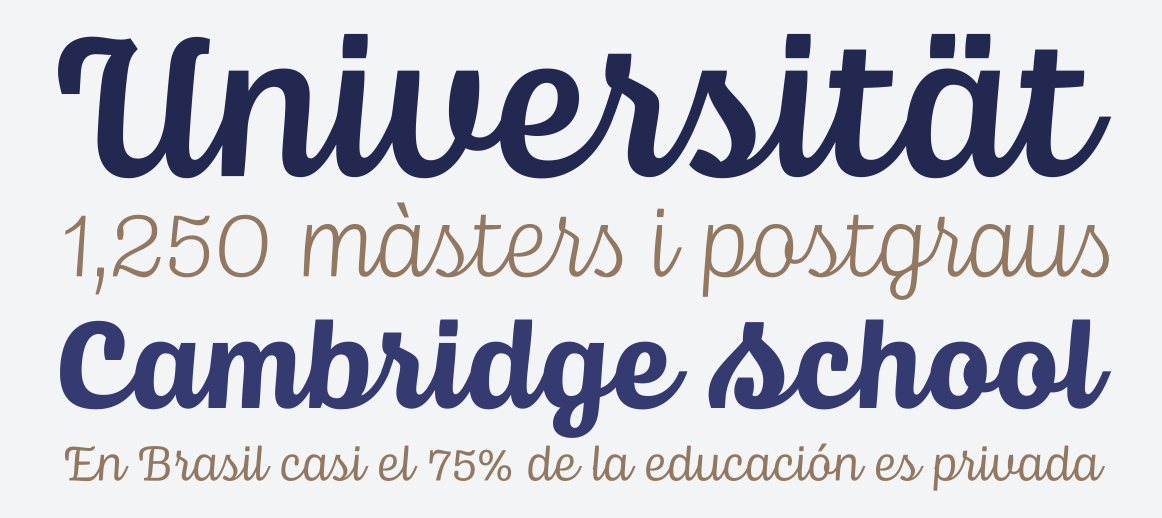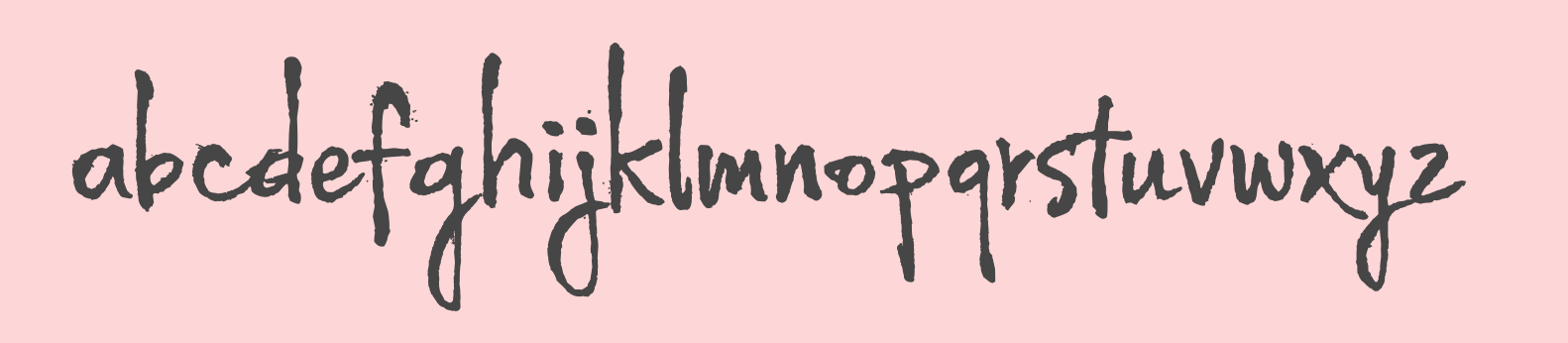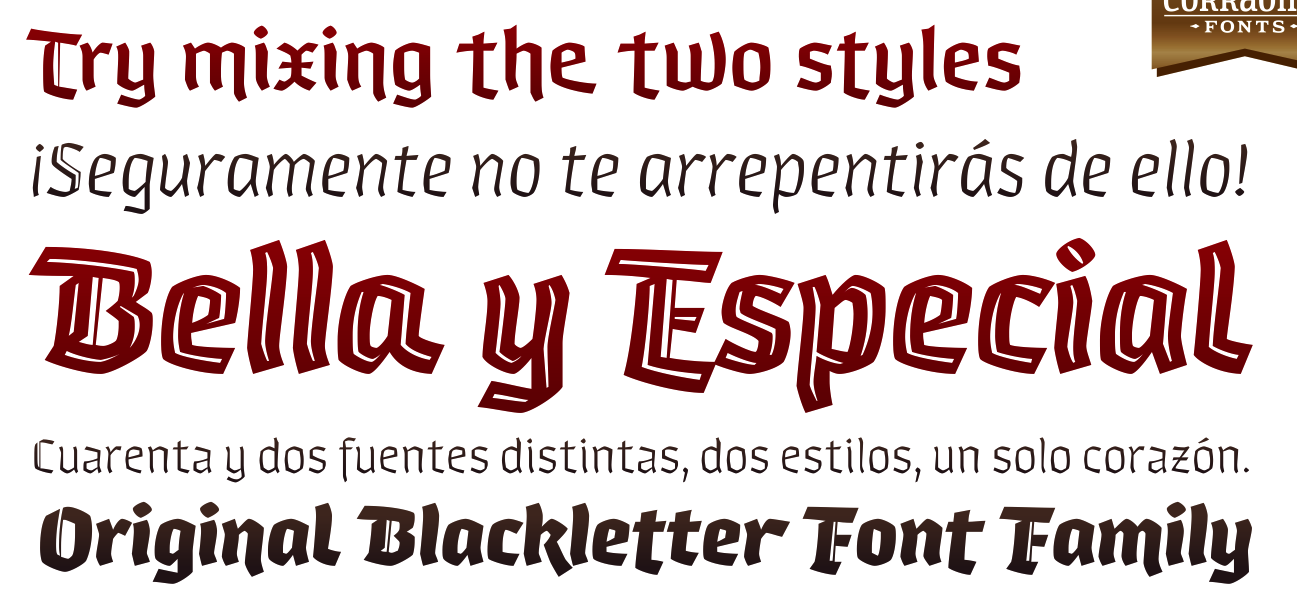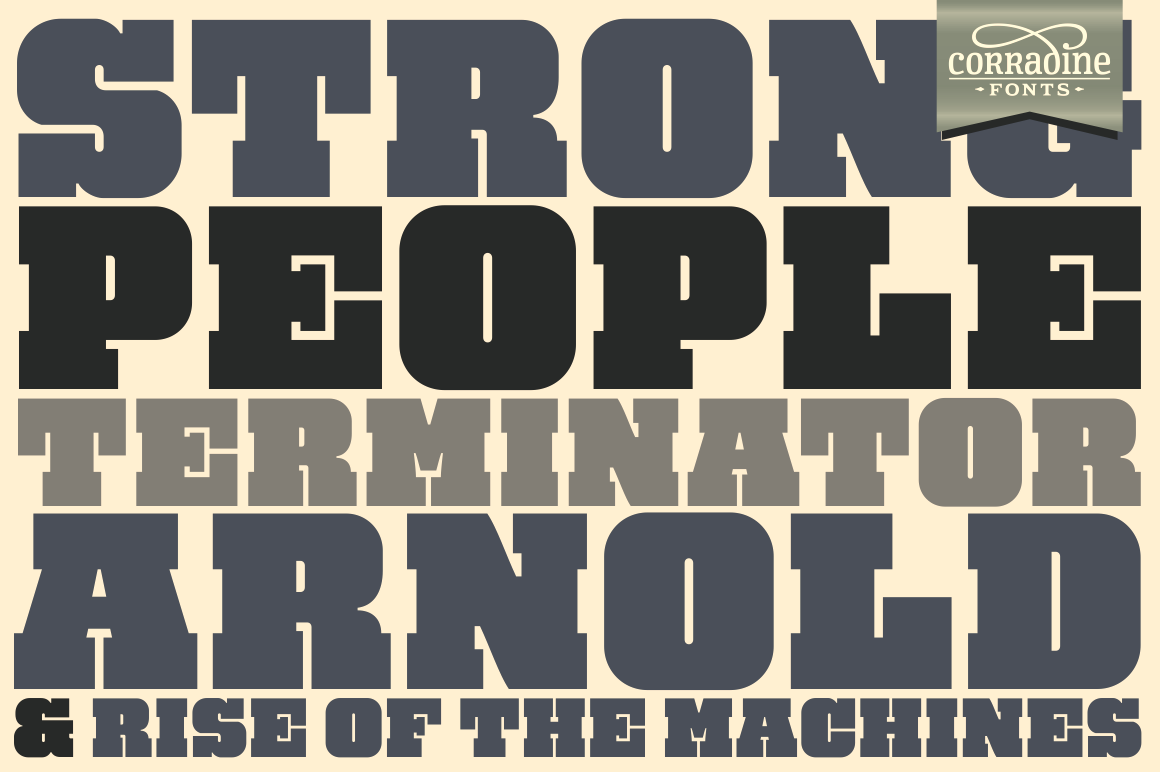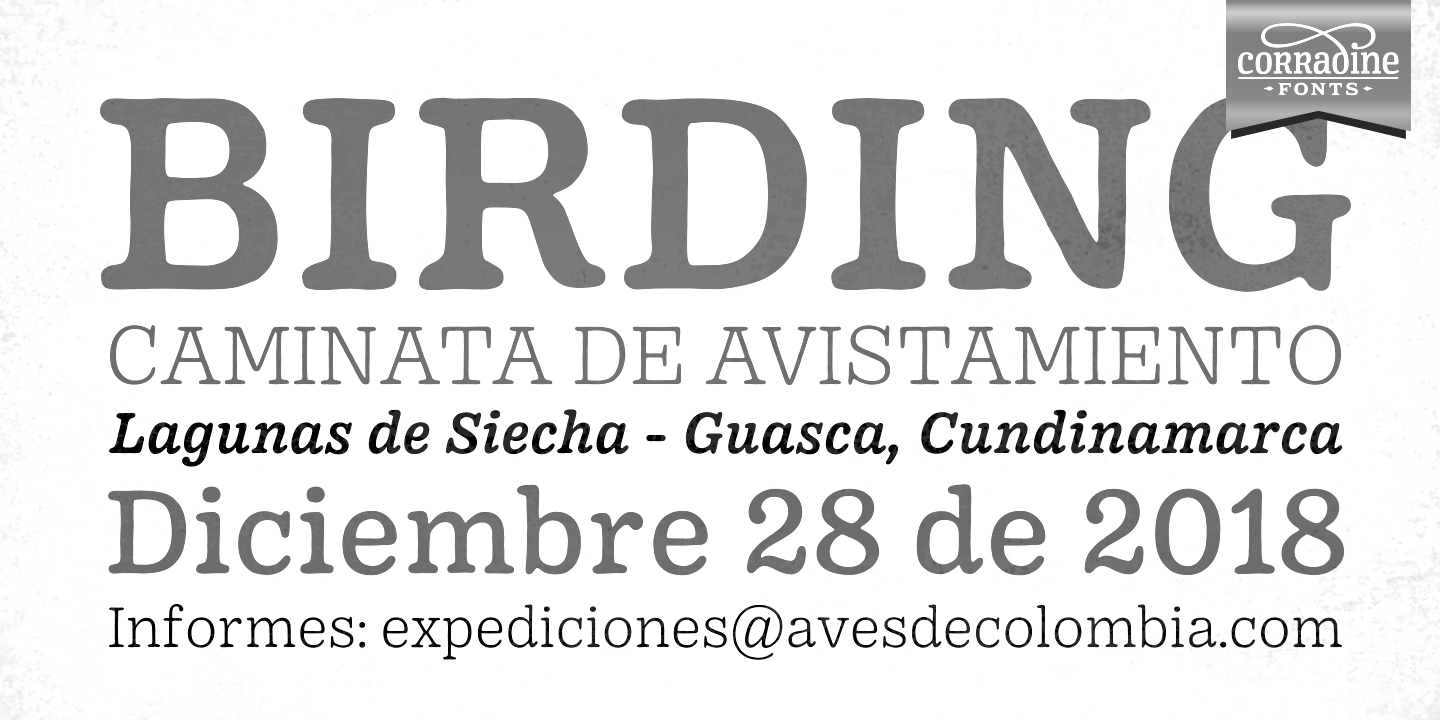
Corradine Fonts [Manuel Eduardo Corradine]
Manuel Eduardo Corradine Mora was born in Bogotá in 1973. He graduated from the School of Graphic Design of the National University of Colombia in 1996, and became a graphic designer. He started by custom-designing fonts and by making typefaces for his own company, Casa Papelera El Cedro (The Cedar Papermaking House), for printing invitation cards. With other designers like Carlos Fabián Camargo, John Vargas and César Puertas he formed Tipográfico in 2007 to strengthen the type discipline in Colombia. Corradine Fonts is Manuel Corradine's own foundry in Bogotá, Colombia, founded in 2006. Today, he is one of Colombia's principal type designers. He also teaches at Universidad Piloto de Colombia in Bogota.
Fonts from 2007: Kidwriting (a family which includes Kidwriting Dingbats 1 and 2), Garabata (a fantastic handwriting face), Garabata Dingbats, Hexagona Digital, Quadrat (grunge), Quadrat Old (grunge), Quadrat Dirty (grunge), Quadrat Broken, Quadrat Ugly, Neogot (experimental, 8 styles).
Fonts from 2008: Mucura (handwriting), Prissa (handwriting), Salpicon (a script), Cuento Serif (a bouncy hand-printed family), Memoria (brush script), Charco, Happy Day (comic book family with Happy Day Dingbats), Espectro (a swinging script with swashes and a Dingbats style), Furia (handwriting), Candelaria (based on house signs in the La Candelaria neighborhood of Bogotá), Old Village (1600's style), Old Village Ornaments, Rapidda (a successful simulation of quick handwriting), Hueca (an outline children's script), Antigua (an old swashbuckler family), Colegial (a great-looking hand script), Pincel (a fantastic paint brush family with accompanying splatter dingbats), Trazo (Corradine's handwriting), Arcos (a techno family), Caveman (a primitive stone-look type family), Rumba (two styles; an elegant flowing brush script), Parche (graffiti family), Elegance Monoline (a greeting card script typeface that won an award at Tipos Latinos 2008), Abuelito (script).
Fonts from 2009: Helga (flowing script), Mussica (+Swash, +Antiqued: a delicate Victorian typeface; followed in 2017 by Mussica Italic), Guarapo (hand-printed), Toxic (futuristic stencil), Emotion (comic book face), Bloque 3D, Rock and Cola, Betco's Hand, Telefante (comic book family), Nancy's Hand (more comic book hand-printing), Alambre (multiline/paperclip), Sensual (calligraphic hand), Zape (in the style of Tekton), Antrax Tech (grunge), Masato (handwriting), Hu Kou (oriental simulation).
Fonts fgrom 2010: Miel (a curly script), Oferta (a signage script), Corradine Handwriting (and Corradine Handwriting Italic, 2015), Alberto (connected hand), Changua (hand-printed).
Fonts from 2011: Plebeya (2011, connected hand), Mimi's Hand Connected, Legendaria (an extensive connected calligraphic family).
Fonts from 2012: Tecna (a techno family co-designed with Sergio Ramirez), Neuron (a fantastic 16-style rounded elliptical sans family created together with Sergio Ramirez), Bucanera Soft (blackletter), Bucanera Antiqued (grungy blackletter), Official (a simple monoline sans family), Almibar (a connected calligraphic Spencerian script), Eterea (a roman all-caps family), Eterea LC (the lower case set), Canciller (an italic roman, done with Sergio Ramirez), Quarzo (2012, a formal copperplate script done with Sergio Ramirez).
Typefaces from 2013: Neuron Angled (still with Sergio Ramirez), Alianza Slab (a great-looking slab family), Alianza Italic and Alianza Script (a packaging font), all made jointly by Manuel Eduardo Corradine and Sergio Ramirez.
Typefaces from 2014: Whisky (a large blackletter family with inlines and fills for layering co-designed with Sergio Ramirez; related to German expressionism, it won an award at Tipos Latinos 2016), Whisky Italics, Beauty Script (with Juan Sebastian Rincon), Emblema and Emblema Headline (tall-legged art deco sans family by Duvan Cardenas), Wild Pen (a 1200-glyph set of typefaces that can be used to simulate handwriting thanks to smart replacements in Opentype), Sinffonia (a thin informal typeface with oodles of choices for swashes).
Typefaces from 2015: Be Creative (a vintage display typeface), Typnic (a varied handcrafted layered and script typeface family; rhymes with picnic), Typnic Headline Slab.
Typefaces from 2016: Naugles (thick display face based on the Naugles logo), Scrans (a modern signage script), Bloque (heavy slab family), Bloque Italic.
Typefaces from 2017: Cristal (layered, triangulated and beveled font family, including exquisite Cristal Dingbats and Cristal Frames), Almibar Pro (connected calligraphic script).
Typefaces from 2018: Tierra Script, Pueblito (rustic style).
Typefaces from 2019: Austera Text (a comfortable workhorse serif).
Typefaces from 2020: Kidwriting Pro.